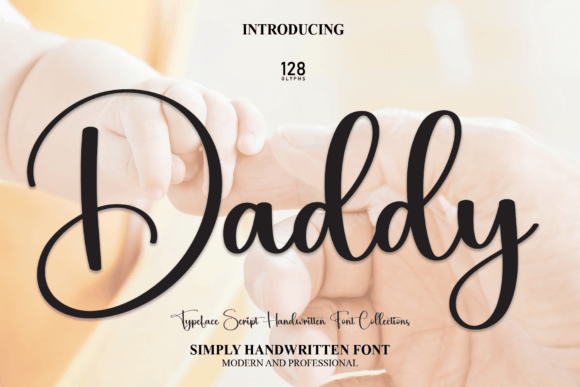
Introducing Daddy Font, the perfect choice for those who want to add a personal touch to their design. Created by Andikastudio, Daddy Font is a lovely and sweet handwritten script font that exudes warmth and charm. Whether you're working on a wedding invitation, a greeting card, or a social media post, this font is sure to impress your audience.
One of the most notable features of Daddy Font is its versatility. It works well with a variety of design styles and can be used in a wide range of projects. Whether you're going for a classic, elegant look or a playful and whimsical vibe, Daddy Font has got you covered.
With its delicate strokes and gentle curves, Daddy Font adds a joyful and romantic touch to each of your projects. It's perfect for expressing love, gratitude, and other warm emotions. You can use it to create stunning designs that will capture the hearts of your audience.
But Daddy Font is more than just a pretty font. It's also highly functional and easy to use. Its smooth, flowing lines make it easy to read, even at smaller sizes. And its OpenType features, including ligatures and alternate characters, give you even more creative freedom.
So why should you choose Daddy Font? Because it's the perfect blend of style and substance. It's a font that not only looks great but also performs well. And with its emotional appeal and creative possibilities, it's sure to make your projects stand out from the crowd.
In summary, Daddy Font is a must-have for anyone looking to add a personal touch to their designs. With its lovely, sweet script and versatile style, it's sure to become your go-to font for all your design needs.